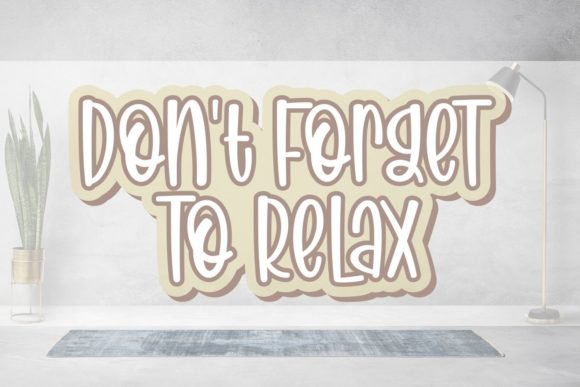
That’s where Don’t Forget to Relax Font comes in – a beautiful, handwritten typeface designed to evoke feelings of calmness and serenity. This lovely font is perfect for creating stunning covers, marketing materials, social media posts, personal branding designs, and more. With its natural, relaxed vibe, Don’t Forget to Relax Font is the perfect companion for any designer looking to add a touch of warmth and personality to their projects.
Don’t Forget to Relax Font Key Features
- Unique Characteristics: The font features a unique, hand-drawn design with a mix of cursive and script elements, creating a friendly and approachable feel.
- Customization Options: The font includes a range of customization options, including ligatures, swashes, and alternative characters, allowing designers to add a personal touch to their work.
Review: Don’t Forget to Relax Font
As a designer, I was excited to dive into the “Don’t Forget to Relax Font” and see what it had to offer. Overall, I found it to be a unique and intriguing choice for a font. ✨
One of the things that stands out about this font is its ability to evoke a sense of calmness and serenity. The rounded edges and gentle curves make it perfect for designs that require a soothing atmosphere. ✨ The font also has a nice balance of modern and vintage elements, which can add a touch of sophistication to any design.
- Unique blend of modern and vintage elements
- Evokes a sense of calmness and serenity
- Nice balance of rounded edges and gentle curves
- May be too soft for bold or edgy designs
- Lack of bold weight options
- Not ideal for designs that require a lot of contrast
Overall, I think the “Don’t Forget to Relax Font” is a great choice for designers looking to add a touch of calmness to their designs. However, it may not be the best fit for every project. With a little creativity and experimentation, it can be a great addition to any designer’s toolkit.
Use the “Don’t Forget to Relax Font” to create calming and soothing designs, perfect for wellness and self-care-related projects.
Combine the font with other calming elements, such as pastel colors and natural textures, to create a relaxing atmosphere.
Experiment with different font sizes and styles to create visual interest and emphasis.
The “Don’t Forget to Relax Font” is perfect for:
Wellness and self-care